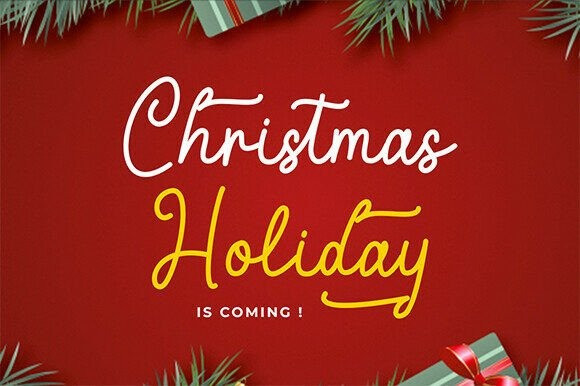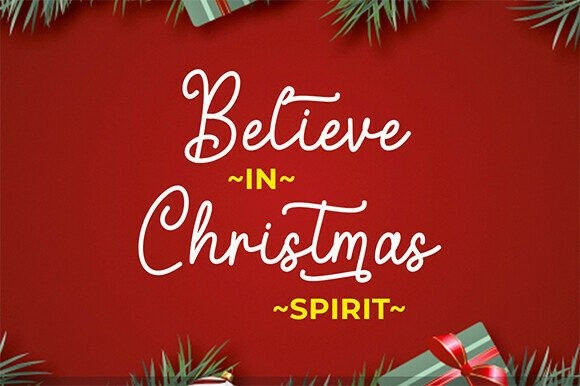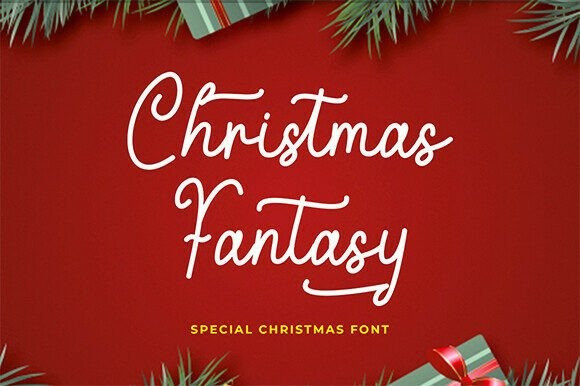
Christmas Fantasy Handwriting Font
Christmas Fantasy Handwriting Font a smooth, flowing script typeface that perfectly captures the joy and wonder of the holiday season.The Christmas Fantasy font exudes a warm, welcoming vibe, featuring elegant loops and delightful swashes that give it a whimsical, authentic hand-lettered feel. This script is designed for maximum impact as a display font, ensuring your seasonal messages stand out with charm and grace. Its unique, connected script style makes it an instant classic for any holiday-themed project.
The Christmas Fantasy typeface includes a comprehensive set of upper and lowercase characters, numerals, and punctuation, along with potential ligatures and stylistic alternates to add extra flourish to your designs. This versatility makes the Christmas Fantasy font ideal for a wide range of uses, from elegant greeting cards and whimsical gift tags to eye-catching social media posts and festive branding.
Elevate your Christmas design aesthetic with the perfect script that feels both traditional and modern.